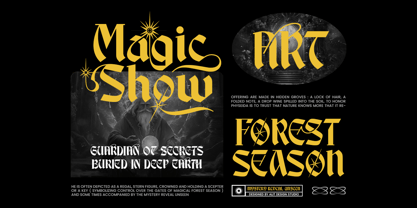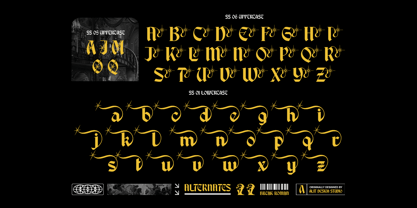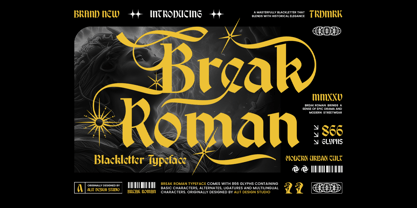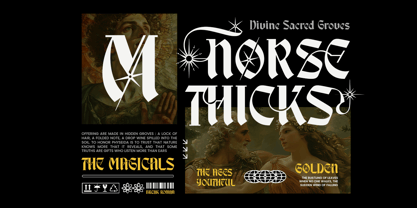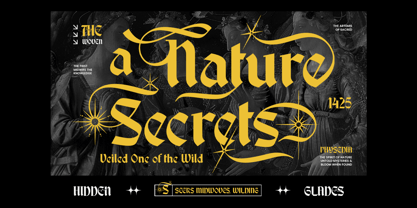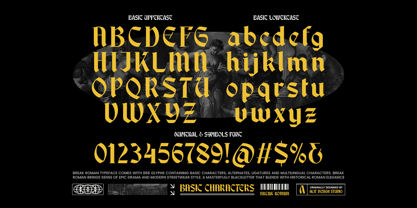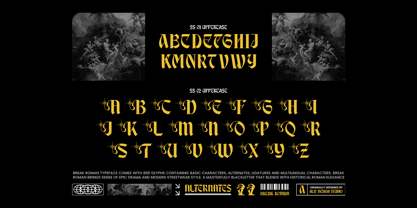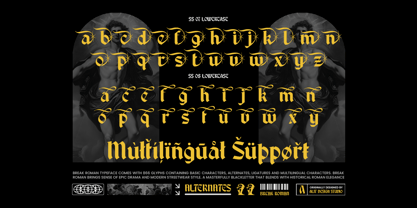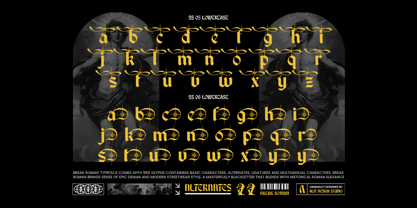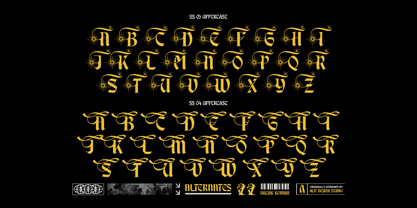
Break Roman
Break Roman Typeface
A Masterful Collision of Historical Blackletter and Contemporary Serif Drama
Step into the world of Break Roman, a highly stylized display typeface that boldly merges the gothic soul of blackletter tradition with the sharp precision of modern serif design. Developed by Alit Design Studio, this typeface isn’t just a font—it’s a typographic experience infused with epic drama, rebellious flair, and meticulous craftsmanship.
Break Roman evokes a visual language that transcends centuries, bringing medieval gravitas into the heart of contemporary visual culture. Its intricate letterforms are designed with a nod to illuminated manuscripts, but updated with assertive modernity that speaks fluently in both luxury editorial layouts and urban streetwear branding.
What Makes Break Roman Unique?
Blackletter x Serif Fusion
Break Roman’s foundation is rooted in blackletter aesthetics—think vertical stress, sharp angles, and dark elegance. But layered on top is the geometry and balance of a modern serif, making it highly legible, stylishly aggressive, and versatile across genres.
Elegant Swashes & Star Variations
Swashes weave and flourish through the characters like celestial ribbons, while custom starburst glyphs add a touch of mysticism and ornamentation—perfect for branding, album covers, or spiritual/occult aesthetics.
Huge Glyph Set – 866 Characters
With an expansive set of 866 glyphs, Break Roman gives designers full creative control. It includes:
• Uppercase and lowercase basic characters
• A wide variety of alternates and ligatures
• Swash versions of key letters
• Multilingual support for extended Latin characters
• Symbolic and stylistic extras, including iconic star shapes and ornamental forms
Modern Urban Edge
Break Roman feels equally at home on a metal album cover, a tattoo parlor sign, or luxury fashion branding. It's gothic yet fresh, aggressive yet refined—making it a favorite for brands that want to express identity, attitude, and artistry.
Perfect For:
• Music branding (metal, rap, electronic, alt-rock)
• Tattoo designs & body art
• Gothic and dark-themed projects
• High-fashion editorial layouts
• Streetwear and merch
• Posters, album art, book covers
• Event promotions (raves, festivals, underground shows)
• Spiritual, mystical, or arcane aesthetics
• Glyph Count: 866+
• Languages: Multilingual Latin support
Conclusion
Break Roman Typeface is more than a display font—it's a typographic revolution that combines gothic elegance with bold modernity. Whether you’re designing for the underground, the runway, or the editorial page, Break Roman delivers unmistakable character and unforgettable style.
Unleash the drama. Break tradition. Embrace the future with Break Roman.